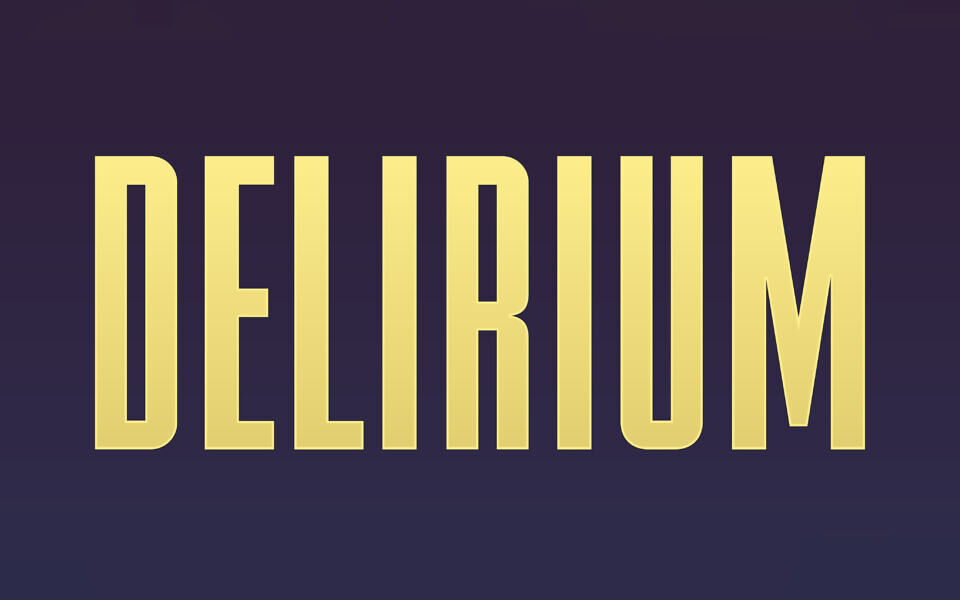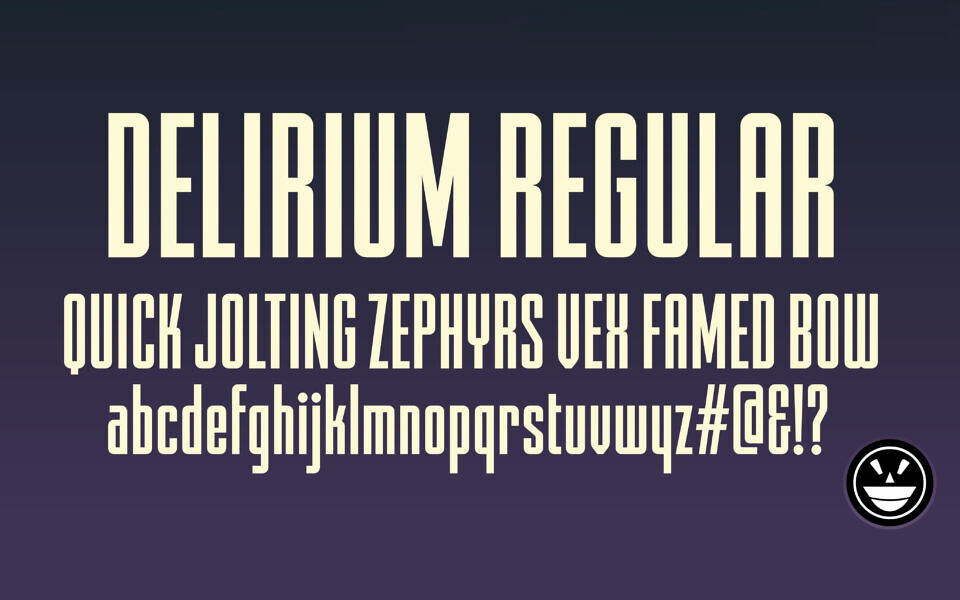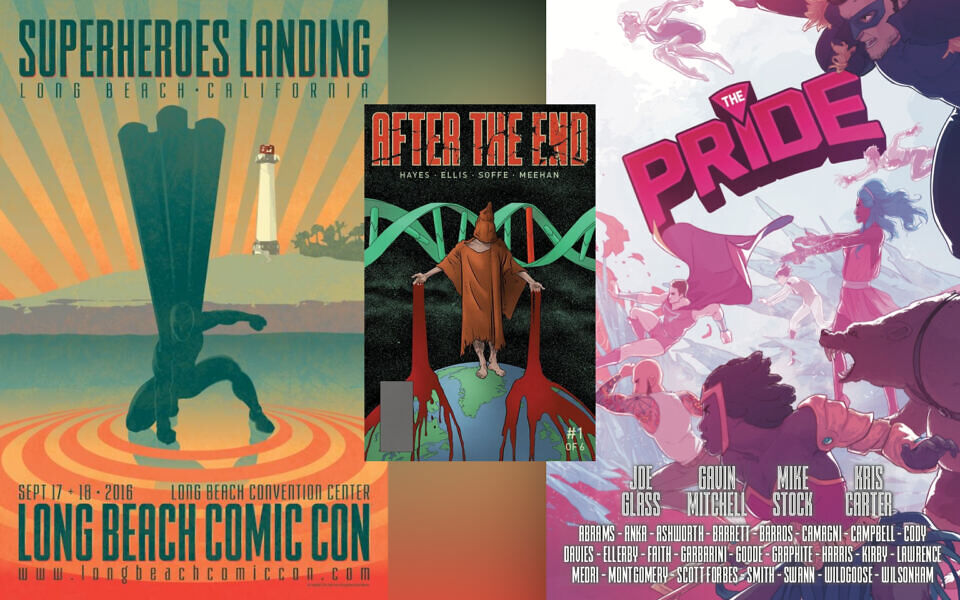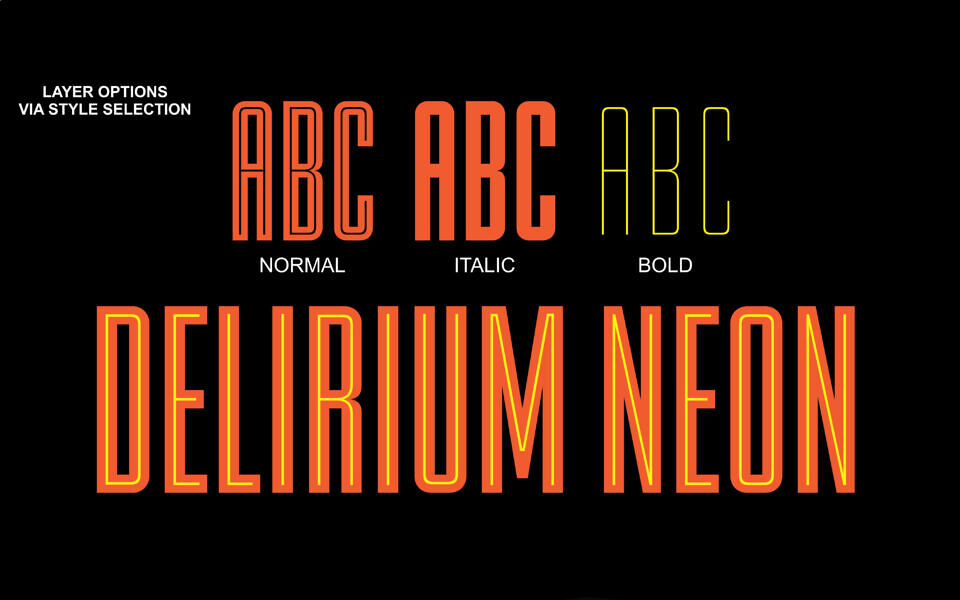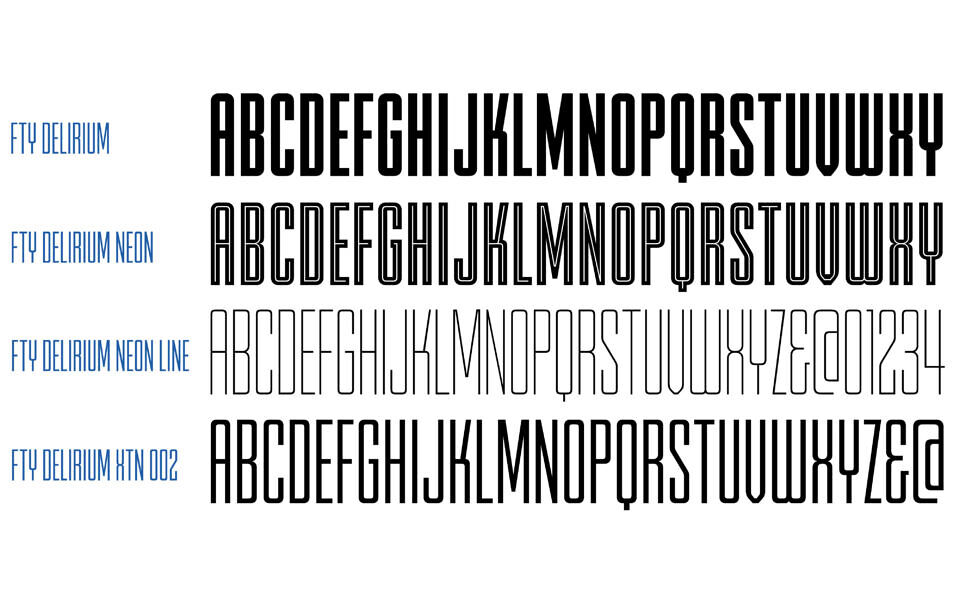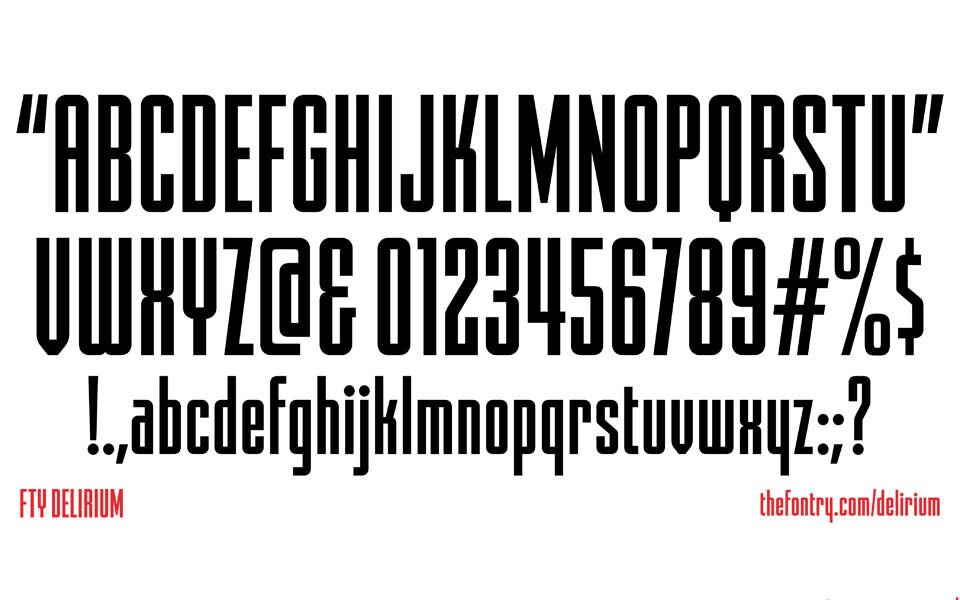
Delirium NCV is a narrow, gothic, gaspipe font family with a distinctive vintage aesthetic. Its sleek, elongated letterforms evoke a retro, industrial vibe, blending sharp angles with a minimalist stance.
The font’s unique gaspipe structure offers a bold yet refined look, ideal for striking designs. Enhanced by neon inline effects in the Delirium Neon NCV variant, it adds a vibrant, glowing dimension, boosting versatility for creative projects. Perfect for logos, cinematic posters, or branding, this font delivers a timeless, edgy charm.